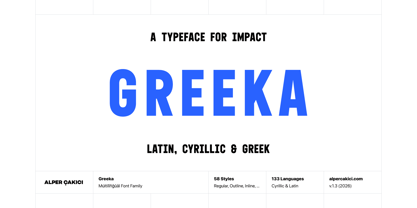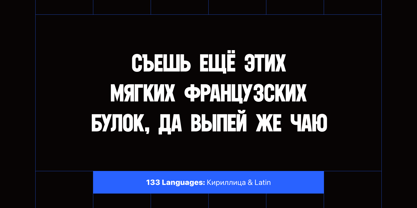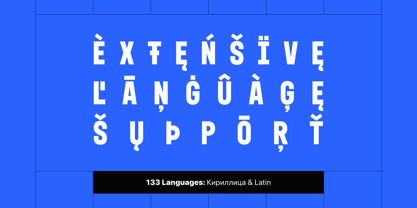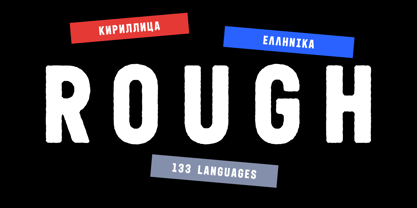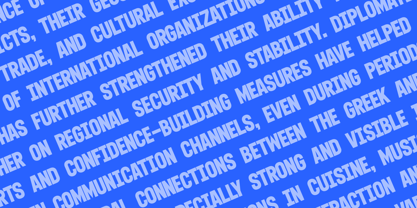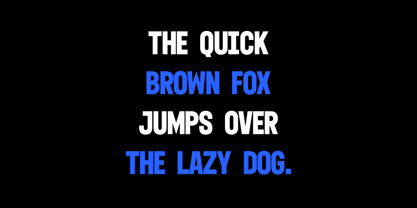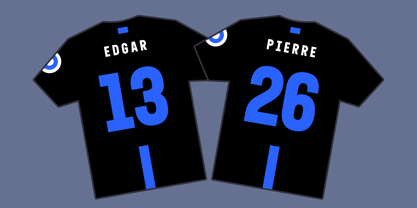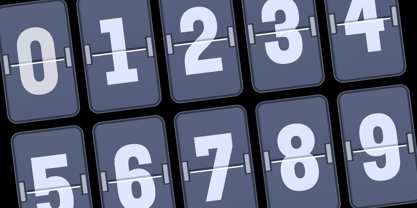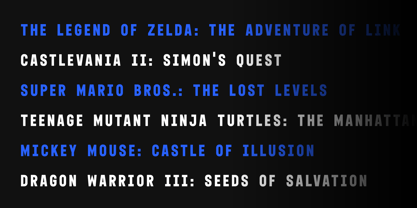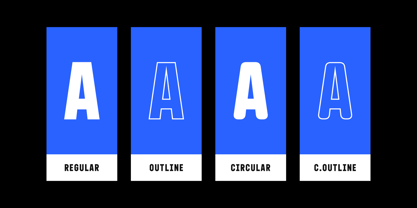
Greeka
by AlperCakici
The Greeka Font Family was designed by Alper Çakıcı and published by AlperCakici. Greeka contains 58 styles and family package options. More about this family
Greeka is a versatile sans serif typeface family designed for bold visual impact and expressive flexibility. Built with a strong structural foundation, it balances modern geometry with handcrafted personality across an extensive range of styles. From sharp Angular cuts to soft Rounded forms, and from clean Regular to textured Brush, Rough, Pencil, and Eroded variants, Greeka adapts effortlessly to diverse creative needs. Its wide stylistic spectrum allows designers to shift between precise, technical layouts and organic, artistic compositions within a single cohesive family. The Circular and Rounded subfamilies introduce a smoother, more approachable tone, while Inline, Outline, Rimmed, and Noise styles add depth and decorative character for standout typography. Italic companions across the family enhance dynamism and motion, making Greeka suitable for both static and expressive layouts. Supporting a broad range of languages, Greeka is ideal for branding, editorial design, posters, packaging, digital media, and multilingual projects. Whether used for bold headlines or stylized display text, it delivers clarity, personality, and consistency. Greeka is a complete design system—powerful, flexible, and built to inspire creativity across every project.
Designers: Alper Çakıcı
Foundry: AlperCakici